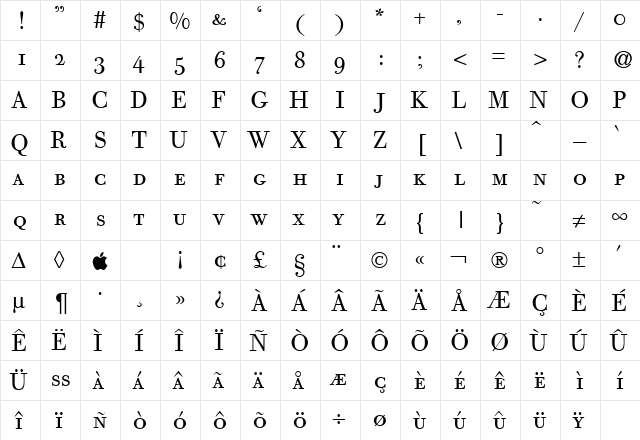
GiambattistaSmc DB Regular
Design Context for GiambattistaSmc DB Typeface
GiambattistaSmc DB is a composed and adaptable typeface that performs quietly and consistently across a wide range of design contexts.